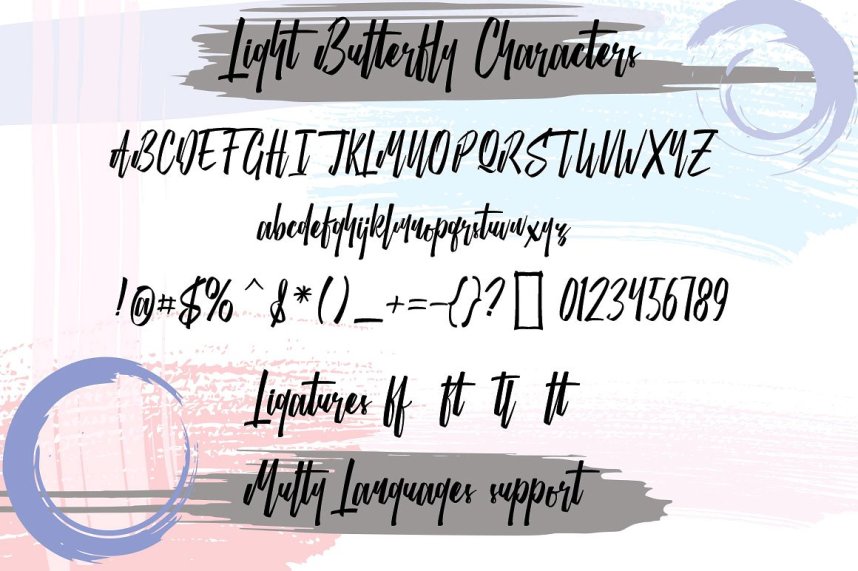
Light Butterfly Script Font
Introducing Light Butterfly Script Font! a hand lettering modern typeface. Light Butterfly designed by individuel, this is a premium font, are sold on creativemarket, but it was great, it is free today for download. Light Butterfly creating the natural font for your designs beyond a standard font and include Ligatures (letters custom). Use it for various purpose like wedding invitations, logos, signatures, t-shirts design, cards, printed quotes, product packagings, headings, blogs, graffiti, website headline and more. Enjoy this exclusive set and explore your fantastic design.